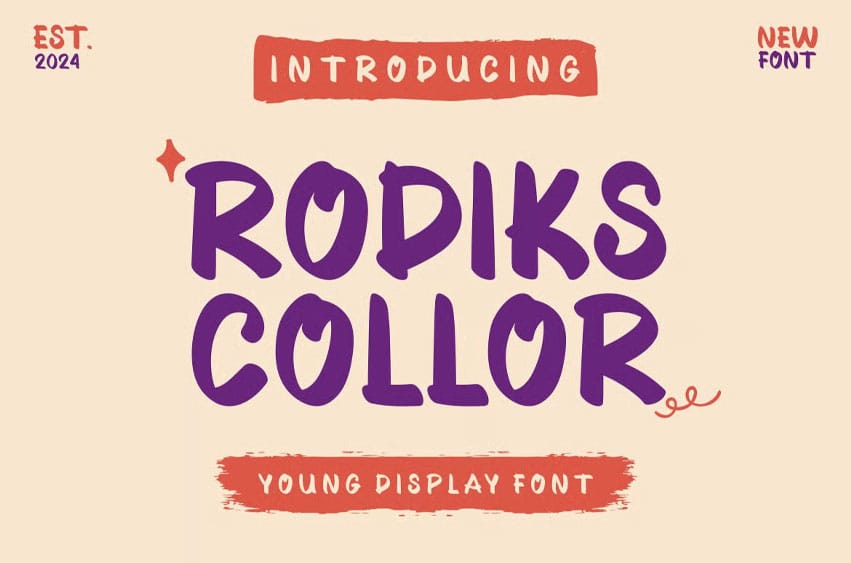
Rodiks Collor Font is a cool and elegant Display Font. Elegant font feel. This font gives you a beautiful and modern atmosphere. Suitable for posters, book covers, cards, merchandise, and more.
Rodiks Collor Font Preview